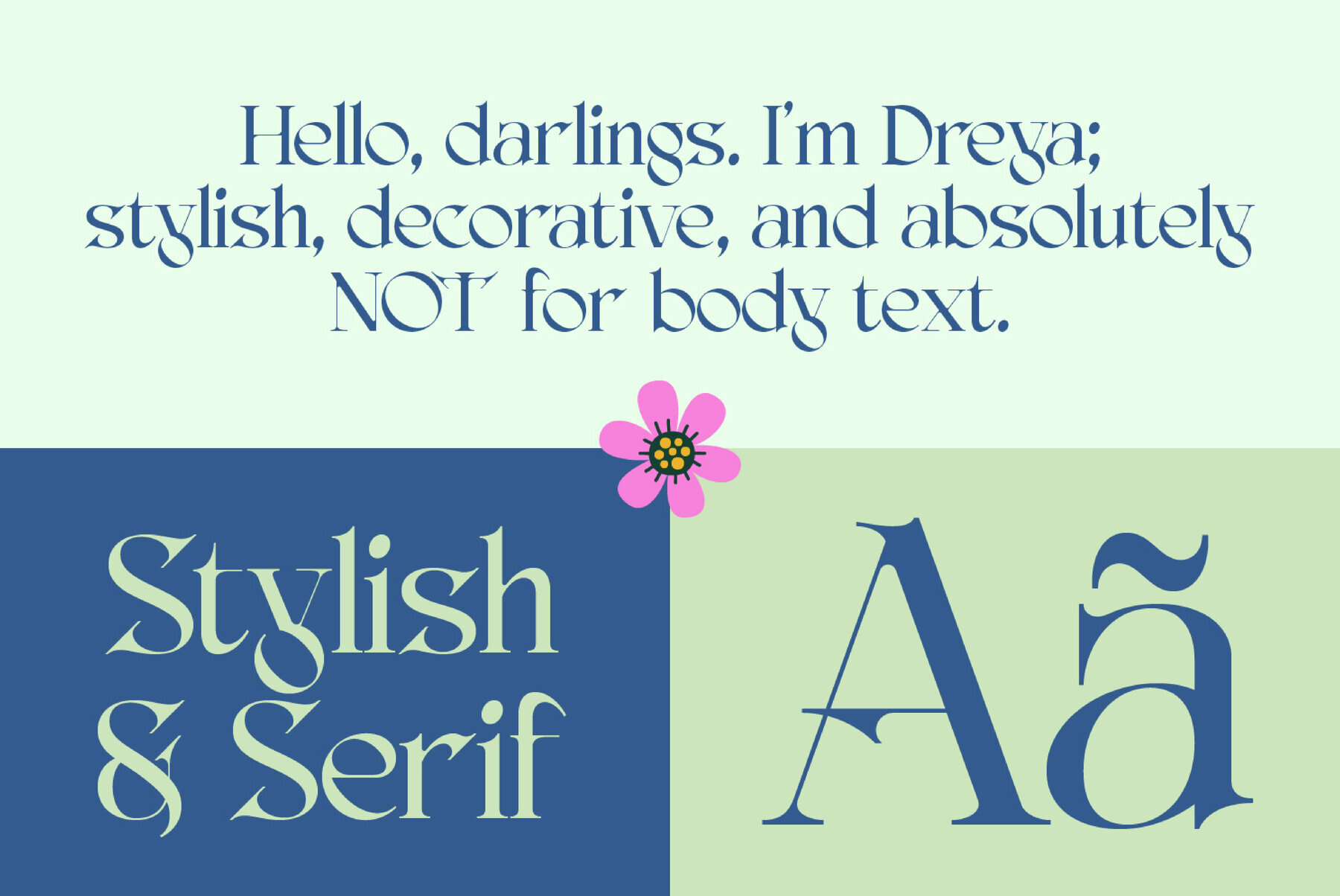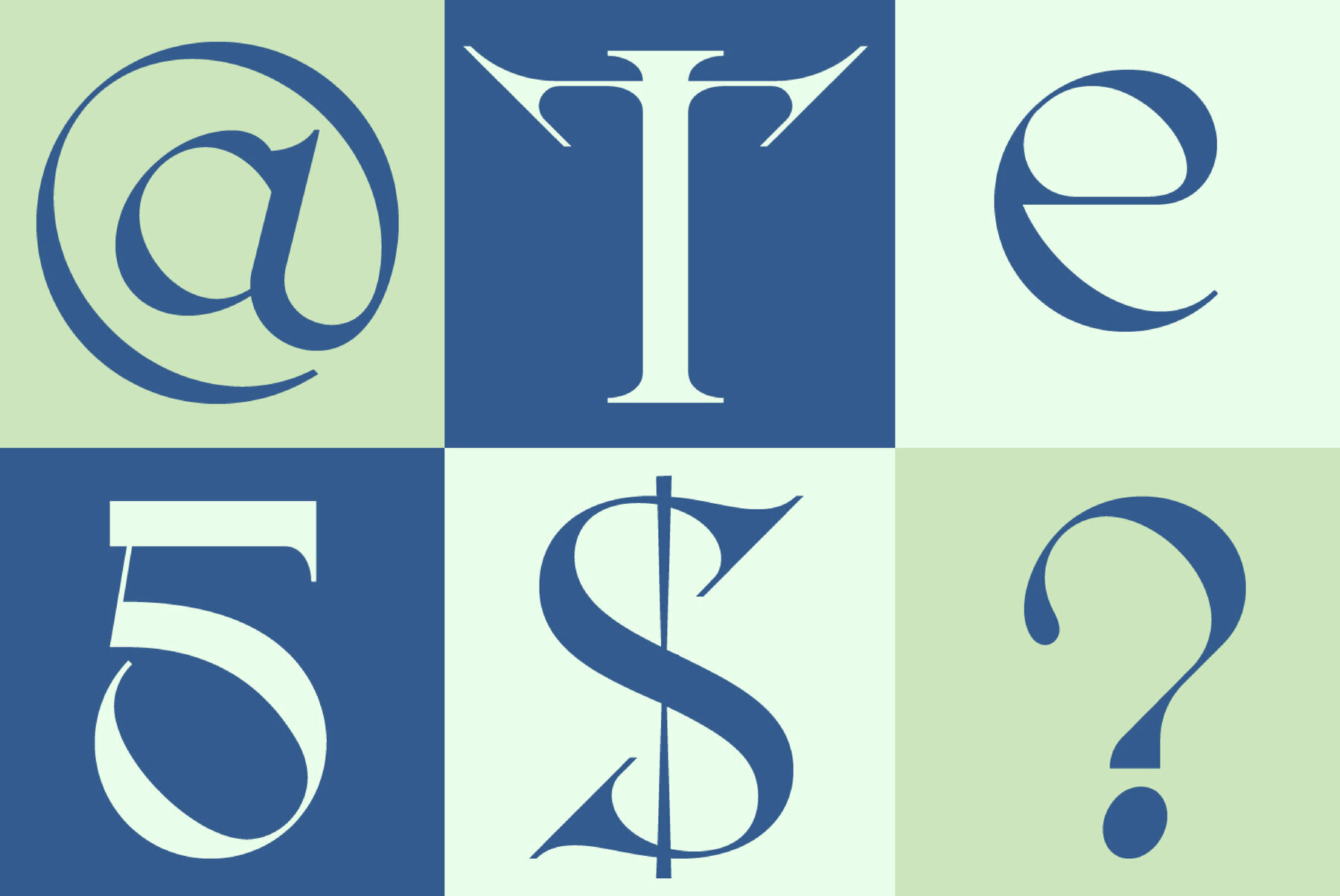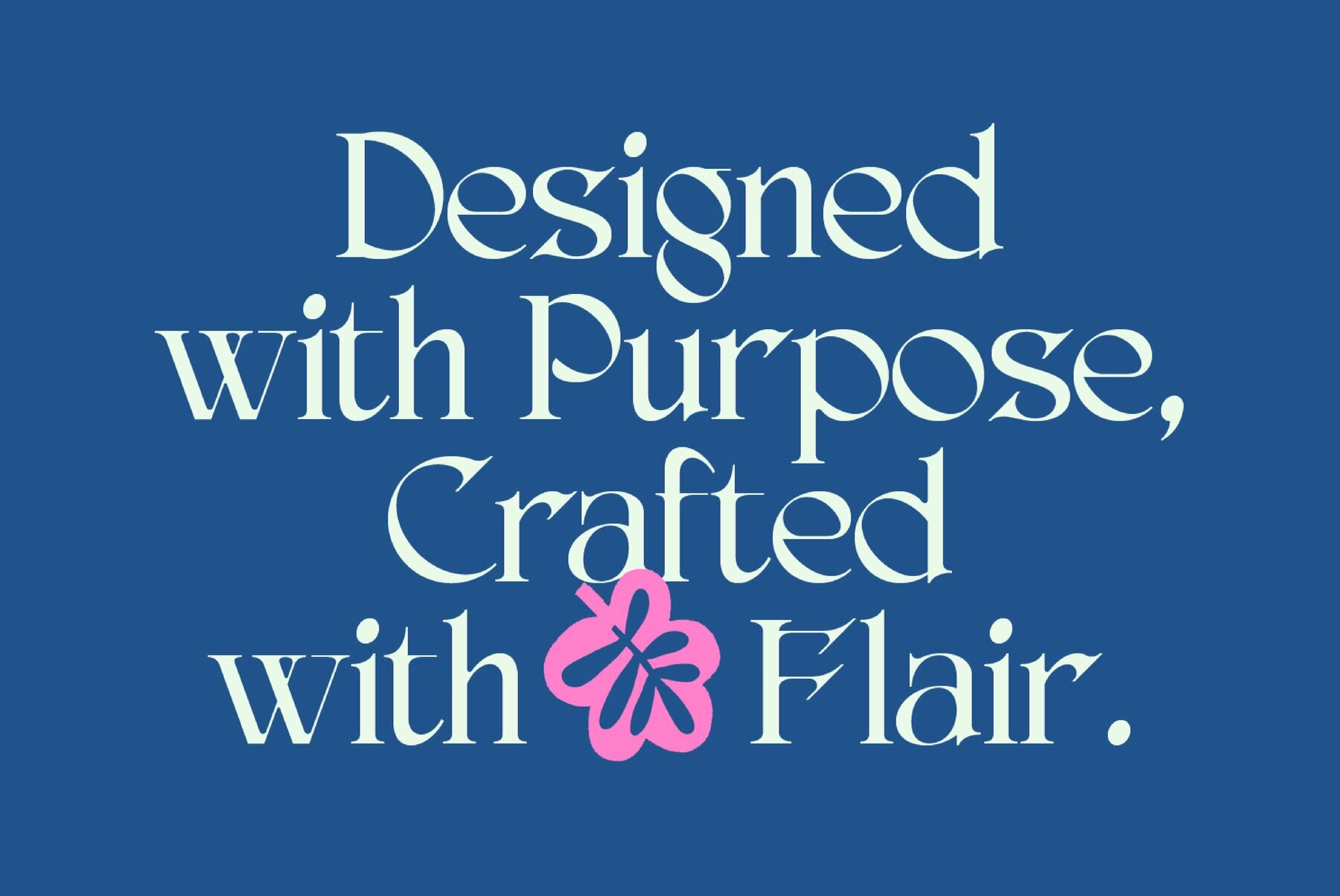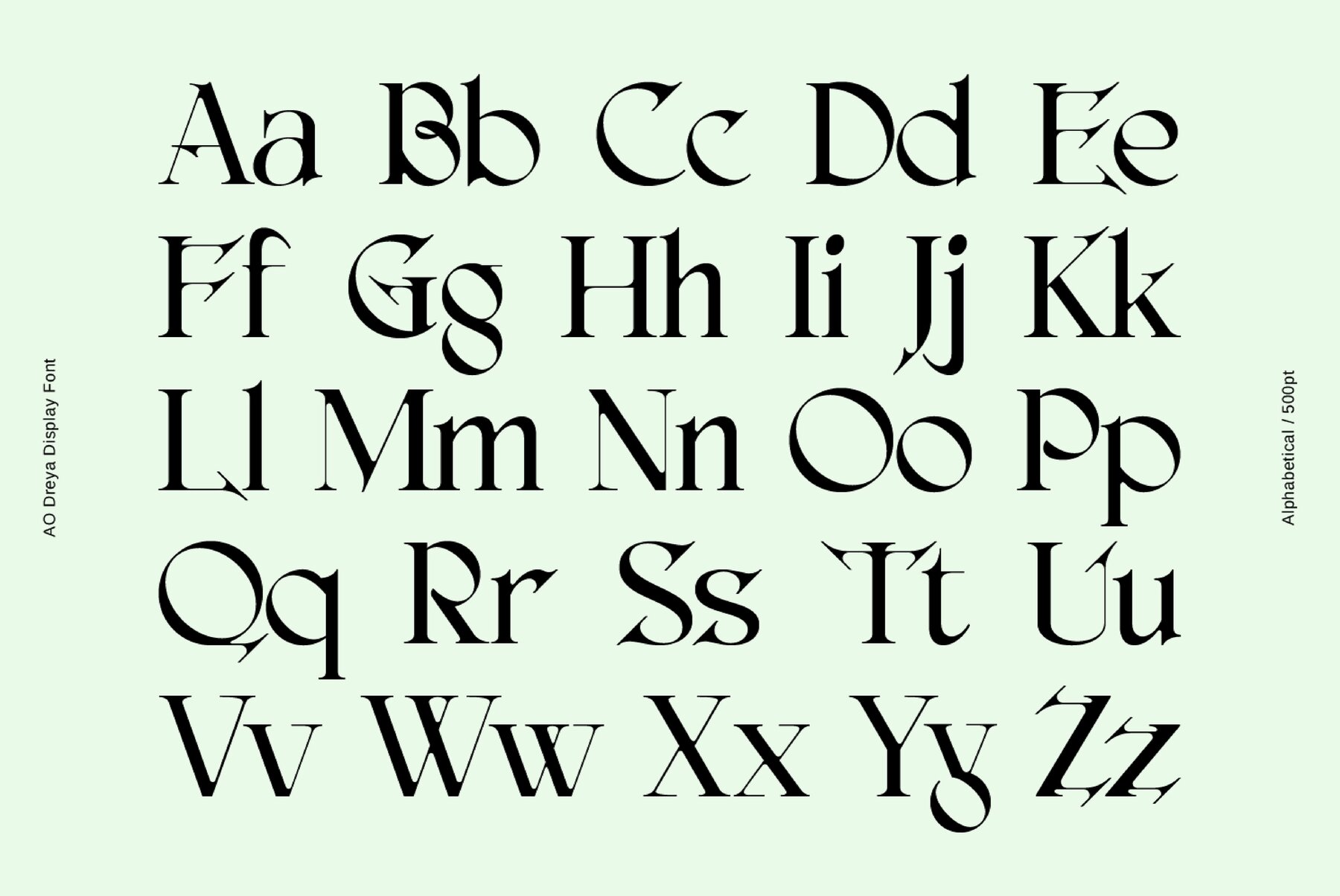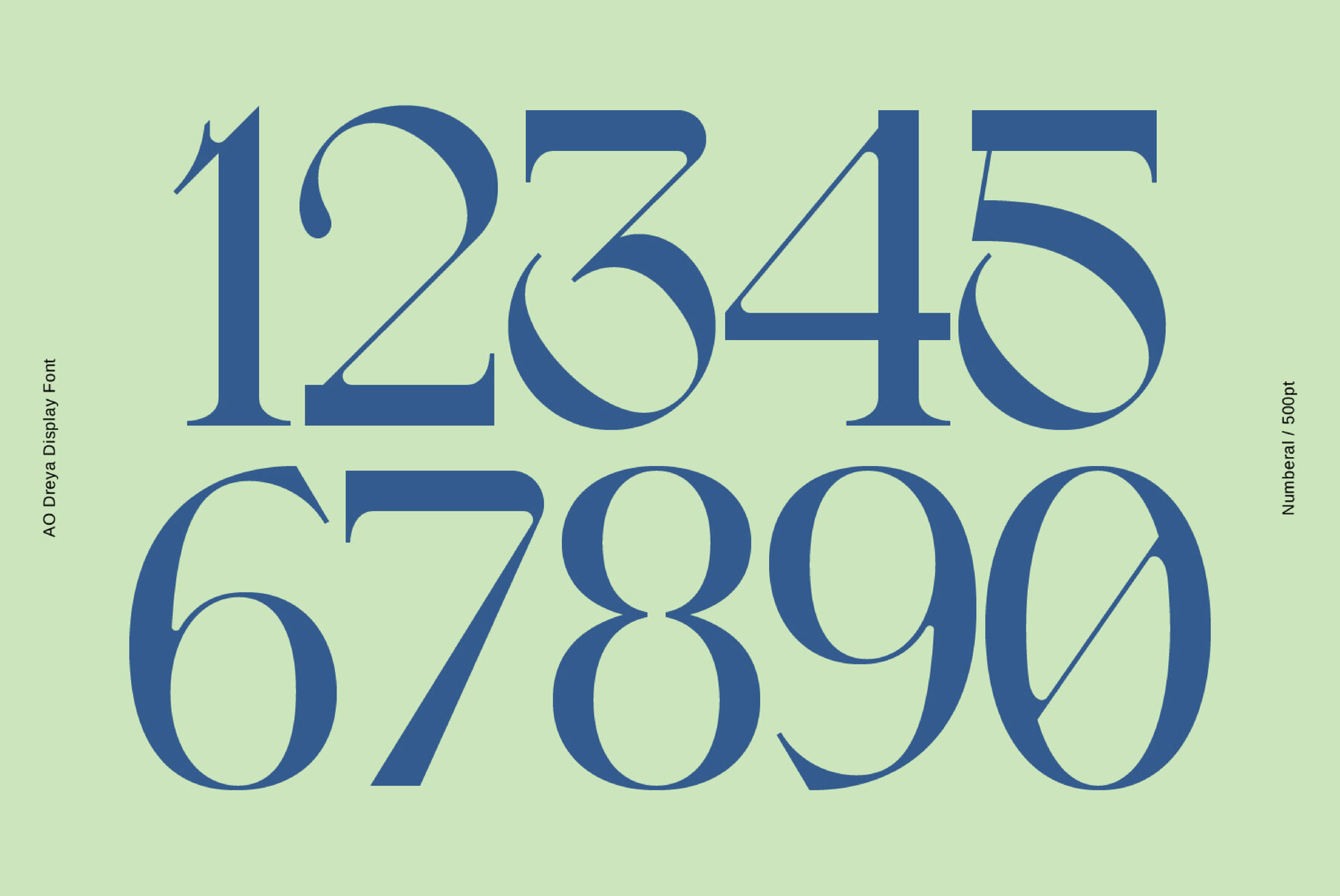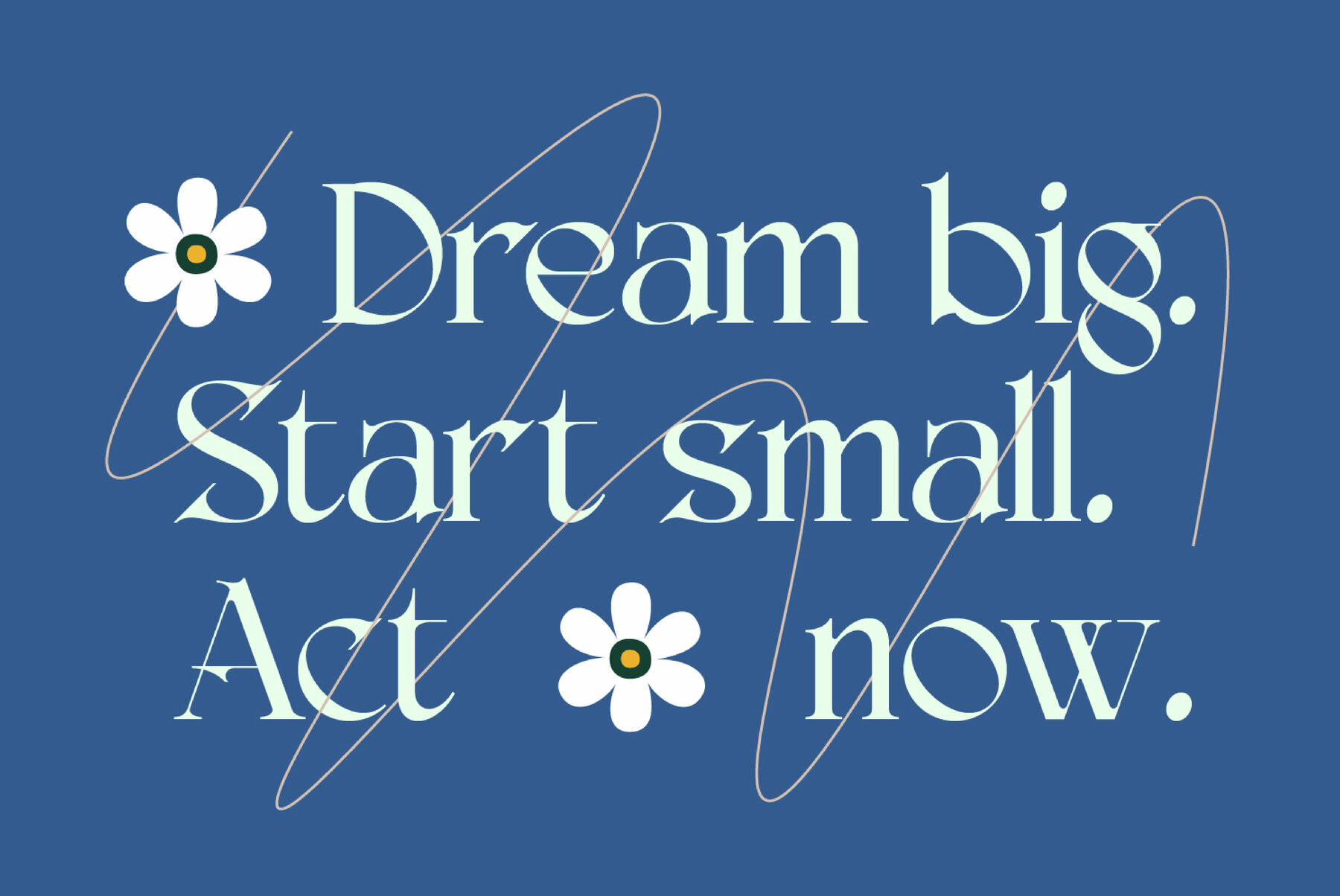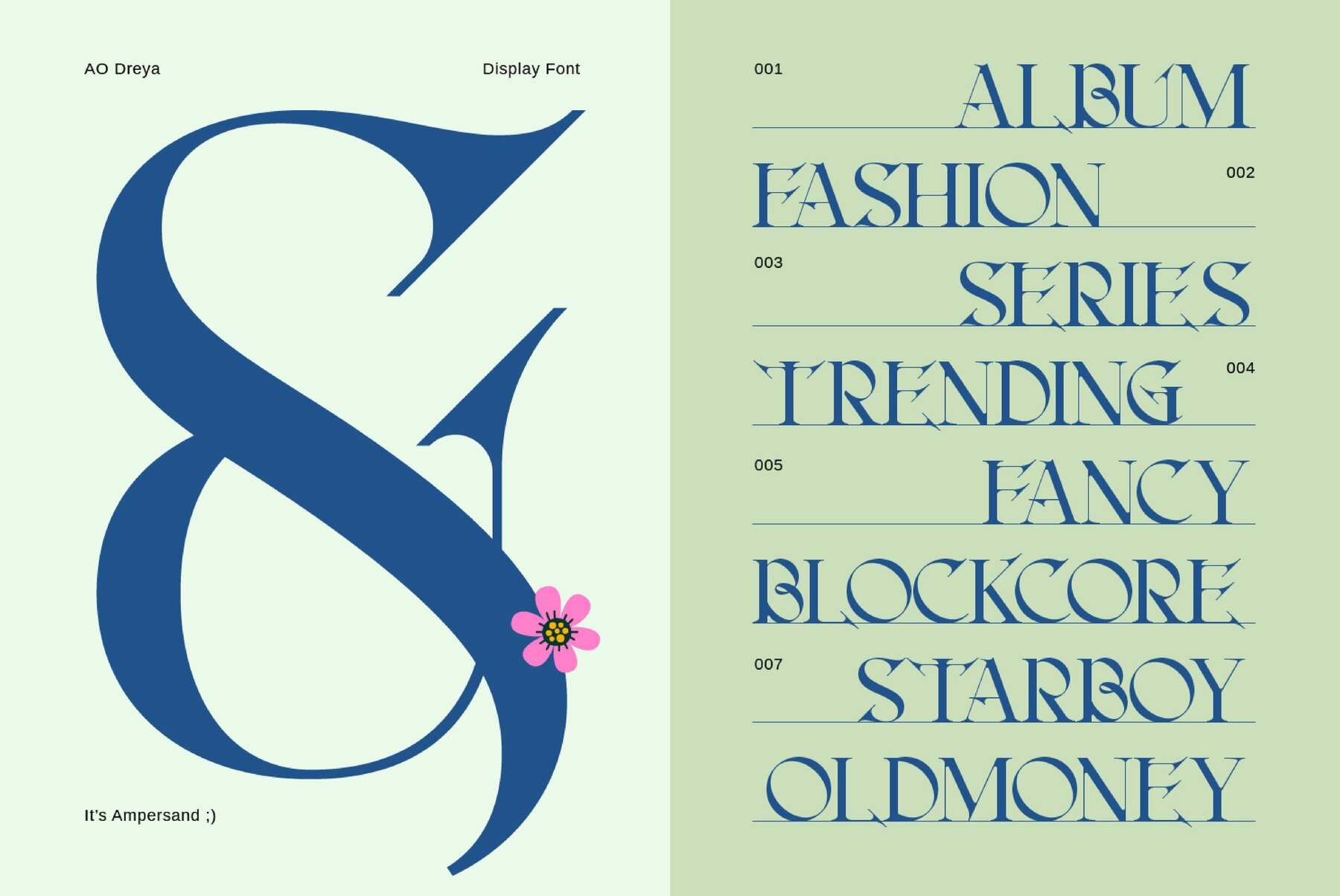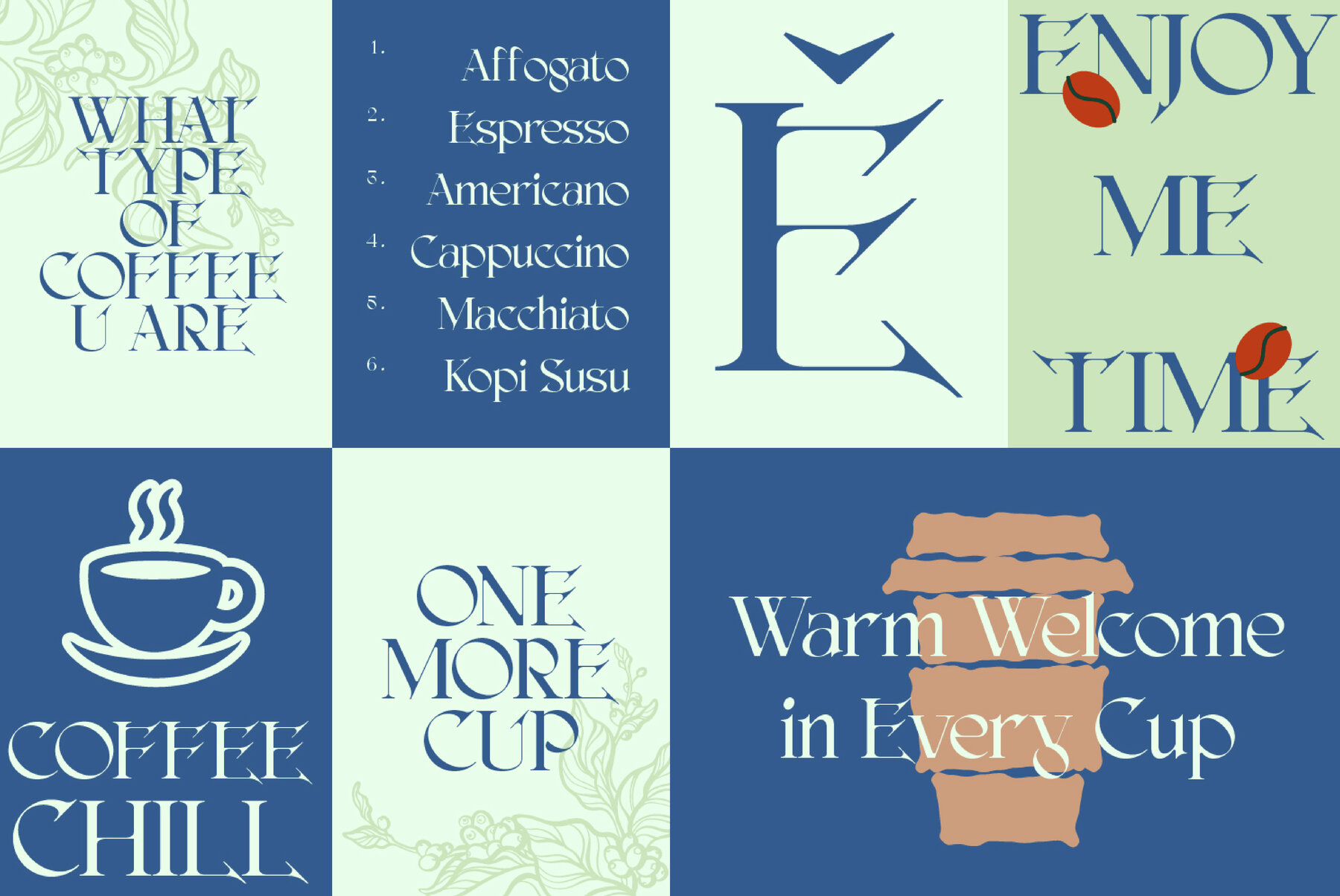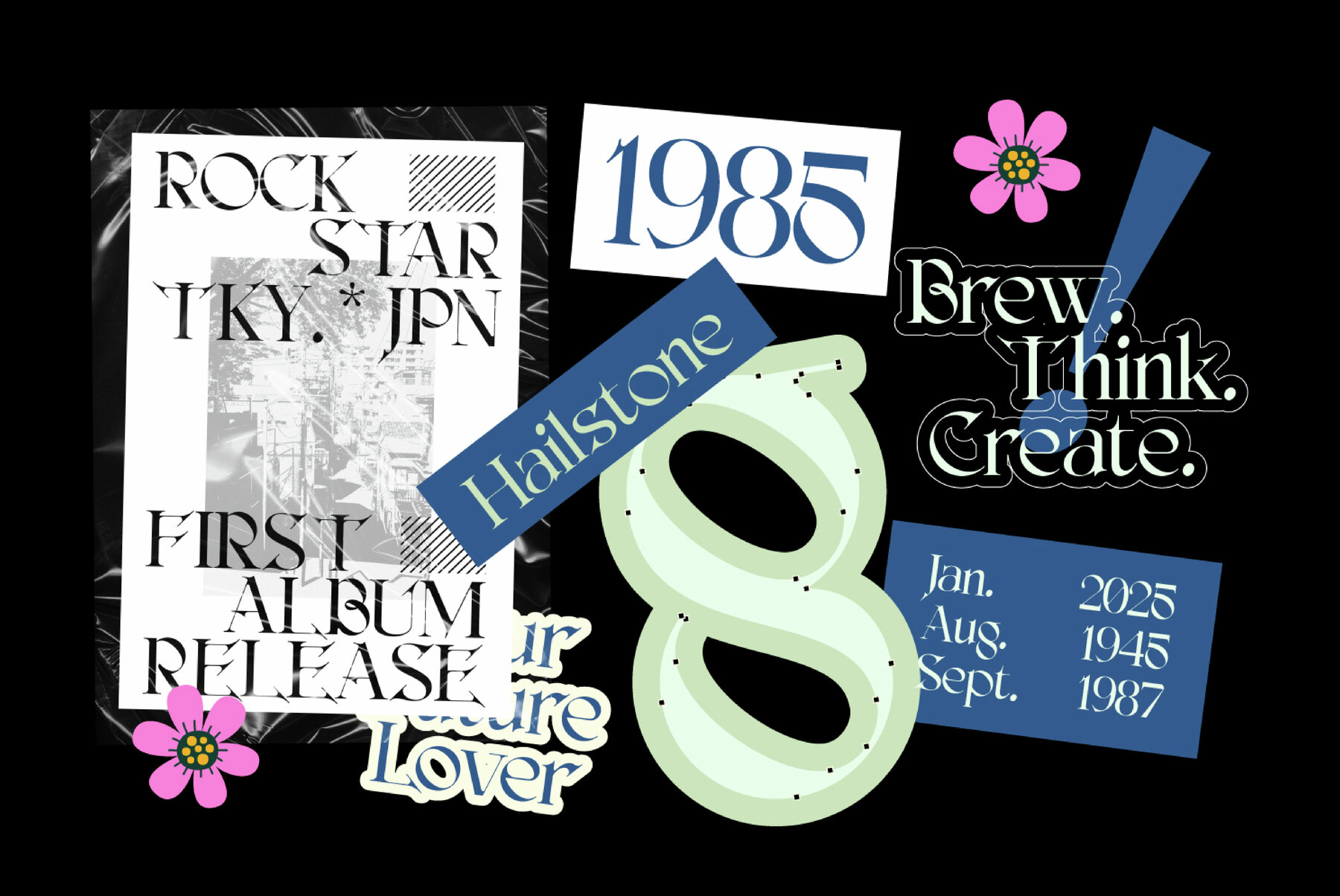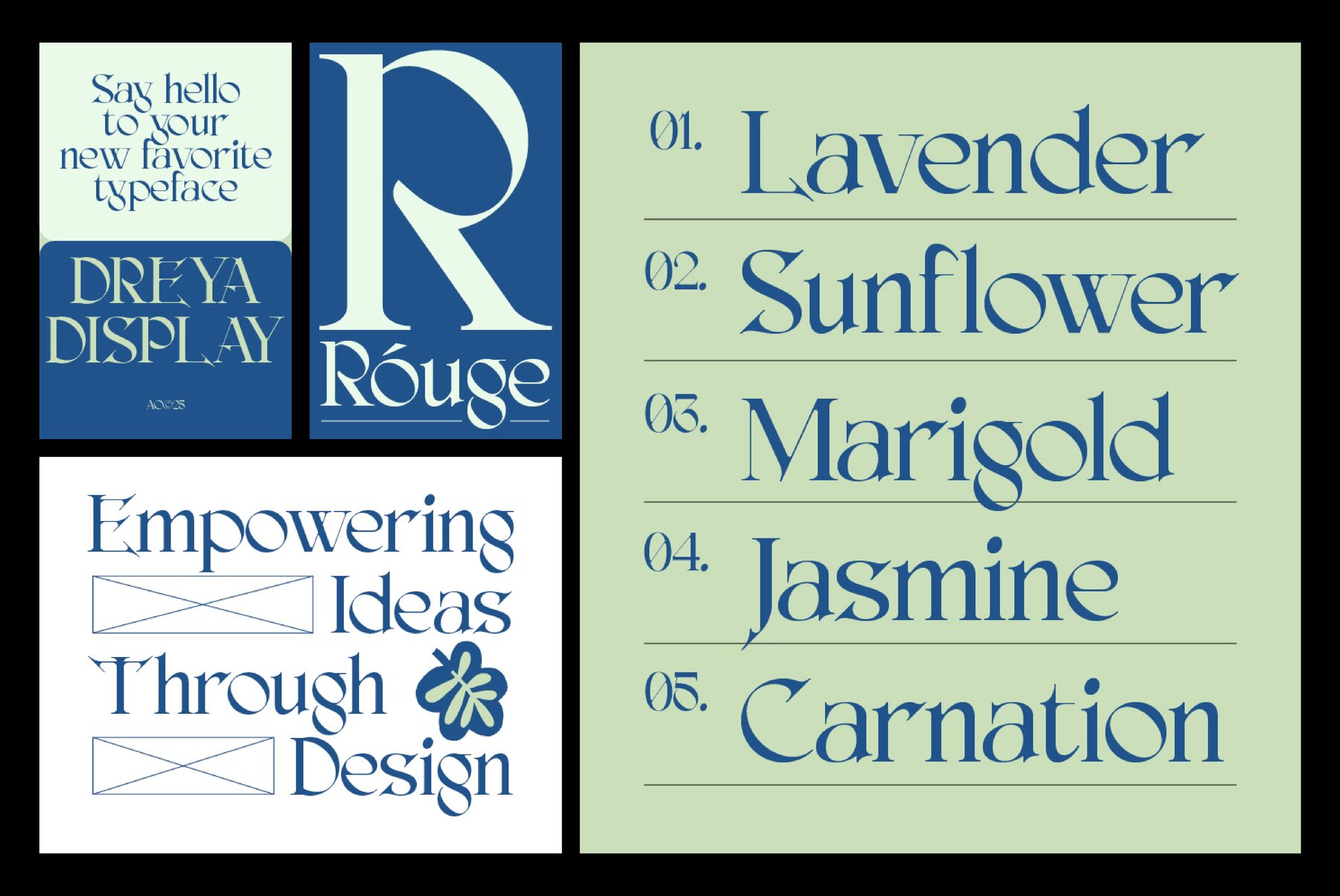
AO Dreya Font
AO Dreya
The AO Dreya Display font introduces a stylish, modern twist to traditional serif typography. Characterized by its sharp edges and smooth curves, it offers just the right contrast to make your designs stand out in any setting. Its versatility shines in various applications from logos to titles and posters, infusing projects with a bold and elegant touch. The AO Dreya Display provides a classy yet fresh aesthetic, ensuring your work remains clean, confident, and effortlessly engaging.AO Dreya Display: Bold Serif with Modern Elegance